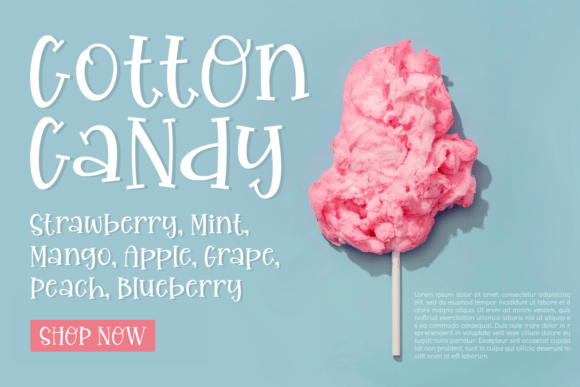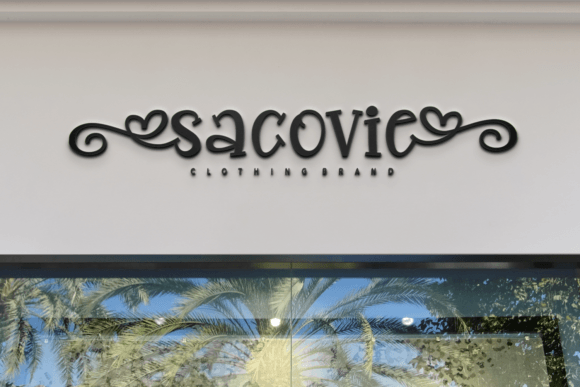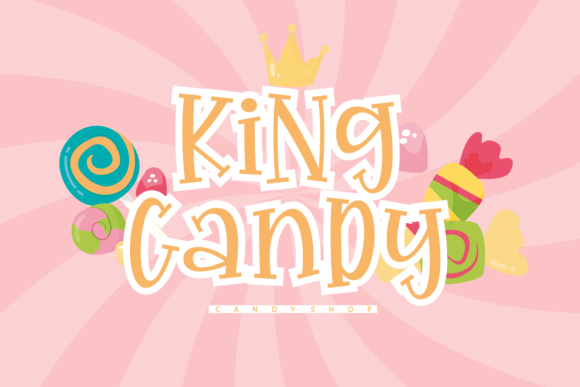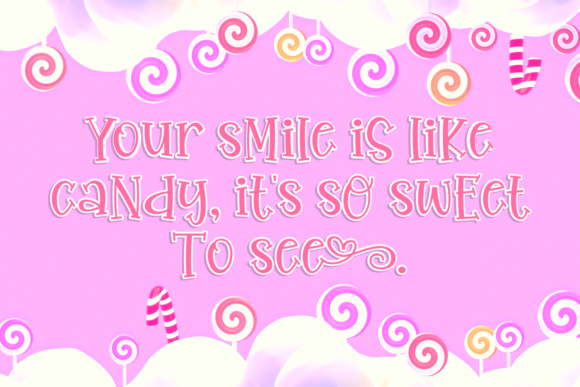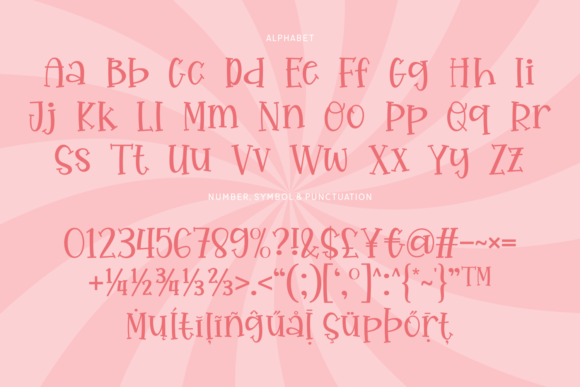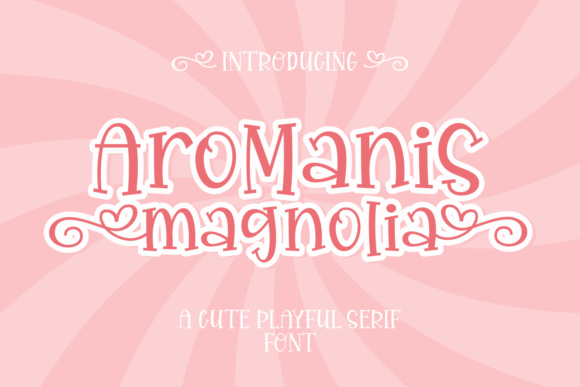
Discover the Perfect Mix of Sweet and Quirky: Aromanis Magnolia Font
As designers, we’ve all been there – staring at a blank canvas, trying to bring an idea to life. It’s the moment when inspiration strikes, and we’re eager to get creative. For me, it’s when I stumble upon a font that screams “fun” and “playful.” That’s exactly what happens when you meet Aromanis Magnolia Font – a charming serif typeface that’s sure to put a smile on your face.
Whether you’re working on a poster, label, t-shirt, banner, or logo, Aromanis Magnolia Font is the perfect addition to elevate your design projects. Its PUA encoding allows for easy access to heart glyphs and extra swashes, giving you the freedom to express your creativity. With this unique typeface, you’ll add a touch of whimsy to your work, making it stand out from the crowd.
Aromanis Magnolia Font Key Features
- Font Family: Aromanis Magnolia, a unique and elegant font designed for various purposes.
- Unique Characteristics: The font features a mix of classic and modern elements, with a unique blend of serif and sans-serif styles, making it ideal for creative and artistic projects.
Aromanis Magnolia Font Review
I had the chance to work with the Aromanis Magnolia font, and I must say it’s a unique and elegant choice. Here’s what I like about it: ✨ It has a beautiful, classic feel that’s perfect for luxury brands and high-end designs. ✨ The font is highly customizable, with a wide range of options for adjusting the size, weight, and style. ✨ The font also supports a wide range of languages, making it a great choice for international projects.
However, there are a few limitations to consider: ⚠️ The font can be quite heavy and ornate, which may not be suitable for all designs. ⚠️ The font also has a limited character set, which may not include all the characters you need for your project. ⚠️ Finally, the font can be quite expensive, especially for commercial use.
Overall, I think the Aromanis Magnolia font is a great choice for designers who want to add a touch of luxury and elegance to their projects. While it has some limitations, the font’s unique character and high level of customization make it well worth the investment.
- Unique, classic feel perfect for luxury brands
- Highly customizable with wide range of options
- Supports a wide range of languages
- May be too heavy and ornate for some designs
- Limited character set may not include all needed characters
Tip: Use Aromanis Magnolia for headings and titles to add a touch of elegance to your design.
Tip: Use Aromanis Magnolia for typography-heavy designs, such as posters or brochures.
Tip: Use Aromanis Magnolia for presentations or documents that require a professional and elegant look.
Aromanis Magnolia is ideal for:
- Posters and flyers
- Presentations and documents